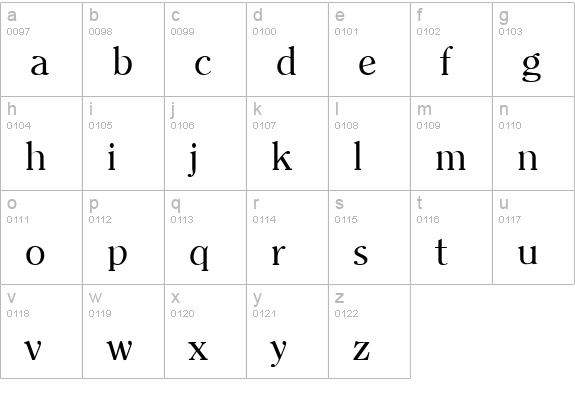
ClearlyRoman Regular Font Details
ClearlyRoman Regular is the standard, neutral variant in the ClearlyRoman typeface family \xE2\x80\x94 well suited to general body text, paragraphs, and standard typographic work.
The ClearlyRoman Regular font is a classic and elegant typeface that exudes sophistication and versatility. With its clean lines and timeless design, this font is perfect for a wide range of projects, from branding and advertising to editorial and web design. The ClearlyRoman Regular font is a serif font that combines traditional elements with a modern twist, making it suitable for both professional and creative applications. Best of all, the ClearlyRoman Regular font is available for free download at FontsMarket.com. Whether you're a designer looking for a new go-to font or someone looking to add a touch of class to your projects, ClearlyRoman Regular is sure to impress with its readability and style. Download your free copy today and elevate your designs with this beautiful and versatile typeface.